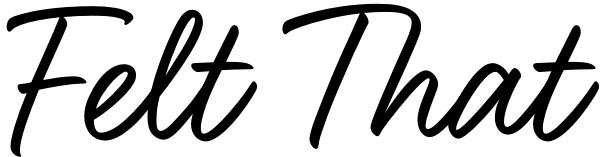
Felt That
Felt That was hand drawn with a bullet tipped marker. Great care was taken to recreate the natural look of handwriting. The large amount of ligatures helps with redundancy that can make a typeface look mechanical. Felt That also contains starts and...